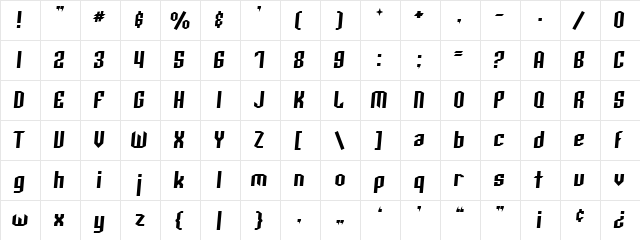
SF Archery Black Italic Font Preview
SF Archery Black Italic
SF Archery Black Italic Font Details
Design Context for SF Archery Black Typeface
SF Archery Black offers clean, dependable letterforms without strong stylistic allegiance, making it a practical choice for designers who need flexibility. The dynamic lean of this cut emphasises speed and emphasis in any layout.